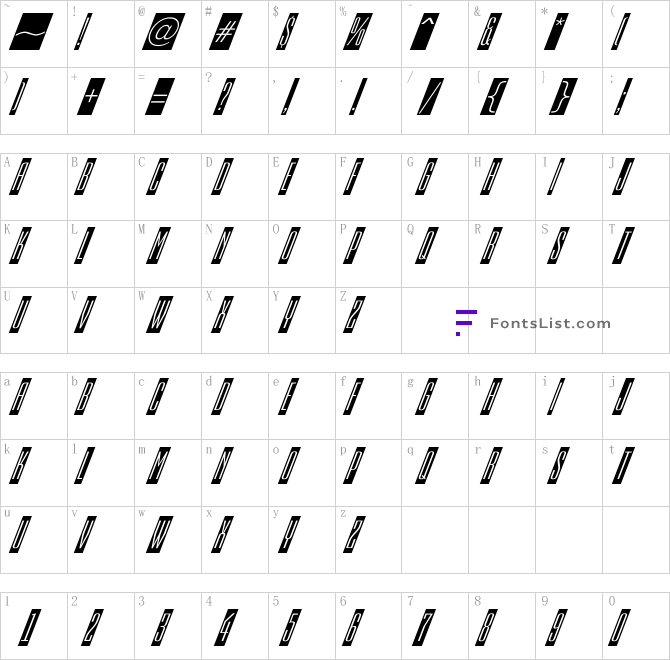
- Font Name:a_EmpirialCmDnObl
- Full Name:a_EmpirialCmDnObl
a_EmpirialCmDnObl.ttf is a very beautiful artistic font, a_EmpirialCmDnObl.ttf is widely used in the design and printing of various books and pictures,a_EmpirialCmDnObl.ttf has a strong visual impact,a_EmpirialCmDnObl.ttf is a commonly used font in newspapers, magazines and books, and is used in posters, e-commerce Poster design, store design, logo design, font design and other fields.a_EmpirialCmDnObl.